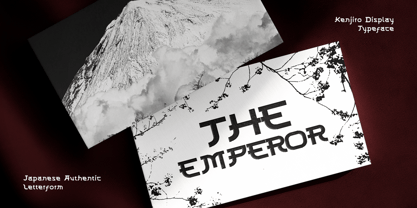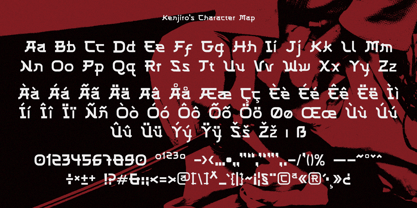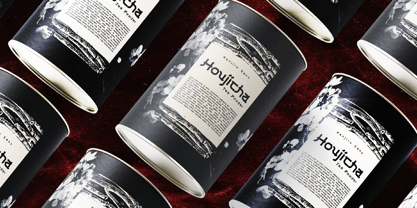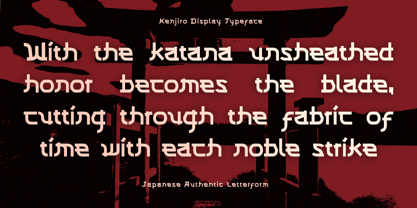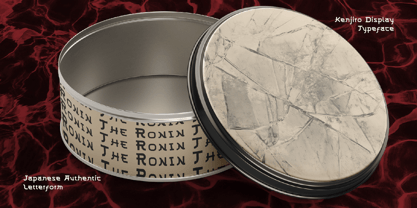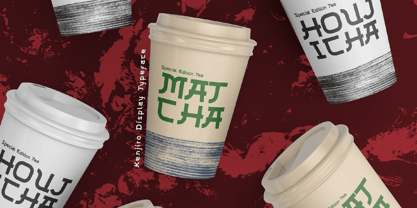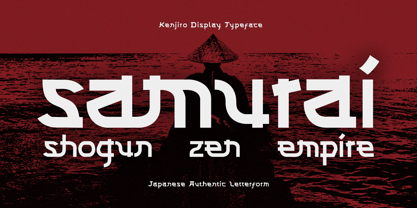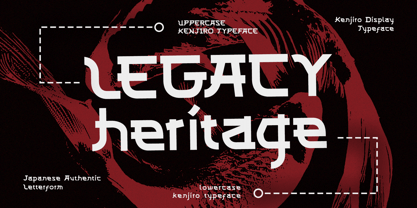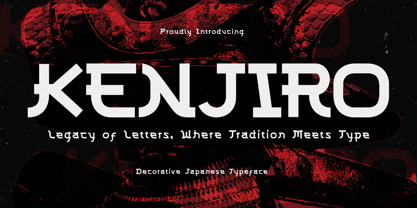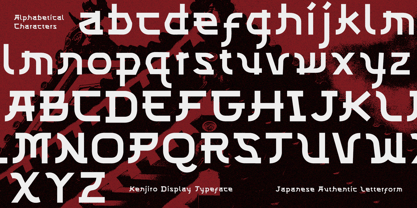
Kenjiro
by Indotype
The Kenjiro Font Family was designed by Febrian Helmi Raharjo and published by Indotype. Kenjiro contains 1 styles. More about this family
Kenjiro - is a versatile font that could be used for a variety of purposes, such as branding, logos, packaging, and invitations. It would also be a good choice for headlines and posters, as its bold personality can make a real impact. Kenjiro is reminiscent of traditional Japanese ukiyo-e woodblock prints, which were often used for decorative purposes. Kenjiro is elegant and dynamic, with stylized strokes and a sense of movement. The characters are inspired by Japanese calligraphy,- but with a more playful and contemporary feel.
Designers: Febrian Helmi Raharjo
Foundry: Indotype